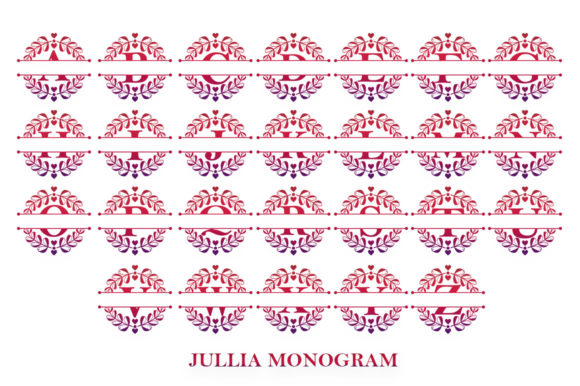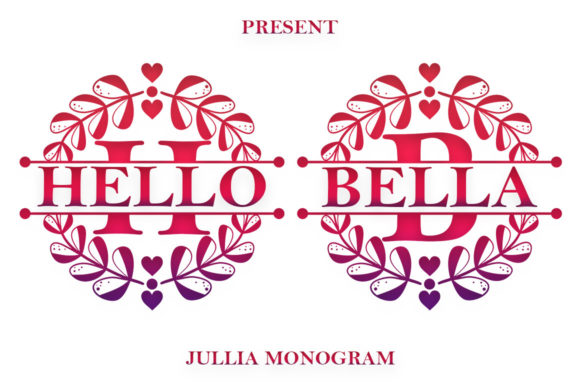
Introduction to Jullia Monogram Font
Do you remember that moment when you stumbled upon the perfect font for your creative project? The one that instantly elevates your design from good to great? For designers and crafty enthusiasts, this feeling is a recurring dream come true. And for those who love elegant and sophisticated designs, the Jullia Monogram Font is about to become their new obsession.
With its beautiful ornaments and authentic feel, this font is a treasure trove of creative possibilities. Whether you’re planning a wedding, designing a stationery art piece, or simply looking for a unique way to express yourself on social media, the Jullia Monogram Font is the perfect design resource to make your project shine. Its high-quality design and transparent background make it a versatile and easy-to-use font that’s sure to impress.
Key Features of Jullia Monogram Font
- Unique Hand-Drawn Design: Jullia Monogram Font is a custom-designed monogram font that offers a distinctive, hand-drawn look, making it perfect for creative projects that require a high level of uniqueness.
- High-Quality Graphics: This font is designed with high-quality graphics, ensuring that your designs look professional and polished, whether you’re using it for a personal project or a commercial design resource.
- Transparent Background: The Jullia Monogram Font includes a transparent background, allowing you to easily combine it with other design elements and create a seamless look.
- Size and Resolution: The font is designed to be scalable, with a resolution of 300 DPI, making it suitable for use in various design projects, from small social media graphics to large-scale print materials.
Honest Review: Jullia Monogram Font
I recently came across the Jullia Monogram Font while working on a creative project, and I must say, it’s been a game-changer. This high-quality design resource has been a great addition to my design toolbox.
What works well is the transparent background, which makes it easy to overlay on any image or background. The font itself is beautifully designed, with a unique and elegant style that adds a touch of sophistication to any design. I’ve used it for various projects, from branding to invitations, and it never fails to impress.
- ✨ High-quality design with a unique and elegant style
- ✨ Transparent background for easy overlay
One limitation of the Jullia Monogram Font is that it’s not as versatile as some other fonts. It’s best suited for formal or elegant designs, and may not be the best choice for more casual or playful projects.
Overall, I’m thoroughly impressed with the Jullia Monogram Font. Its high quality and unique design make it a valuable addition to any designer’s toolkit. Whether you’re working on a branding project or creating invitations, this font is sure to elevate your design.
Tips for Getting the Most Out of Jullia Monogram Font
For a high-quality design, use Jullia Monogram Font as a creative project resource, and experiment with different font styles and combinations. You can also use the font as a design element in a transparent background image to add depth and interest to your design.
Jullia Monogram Font is a versatile design resource that can be used in various creative projects, such as wedding invitations, business cards, and social media graphics. It’s also a great resource for designers who want to create high-quality designs with a personal touch.
Q: Is the Jullia Monogram Font suitable for high-resolution printing?
Yes, the Jullia Monogram Font is designed to be scalable and suitable for high-resolution printing. Its high-quality design ensures that it will print clearly and crisply, making it an excellent choice for any design project that requires precision and attention to detail.